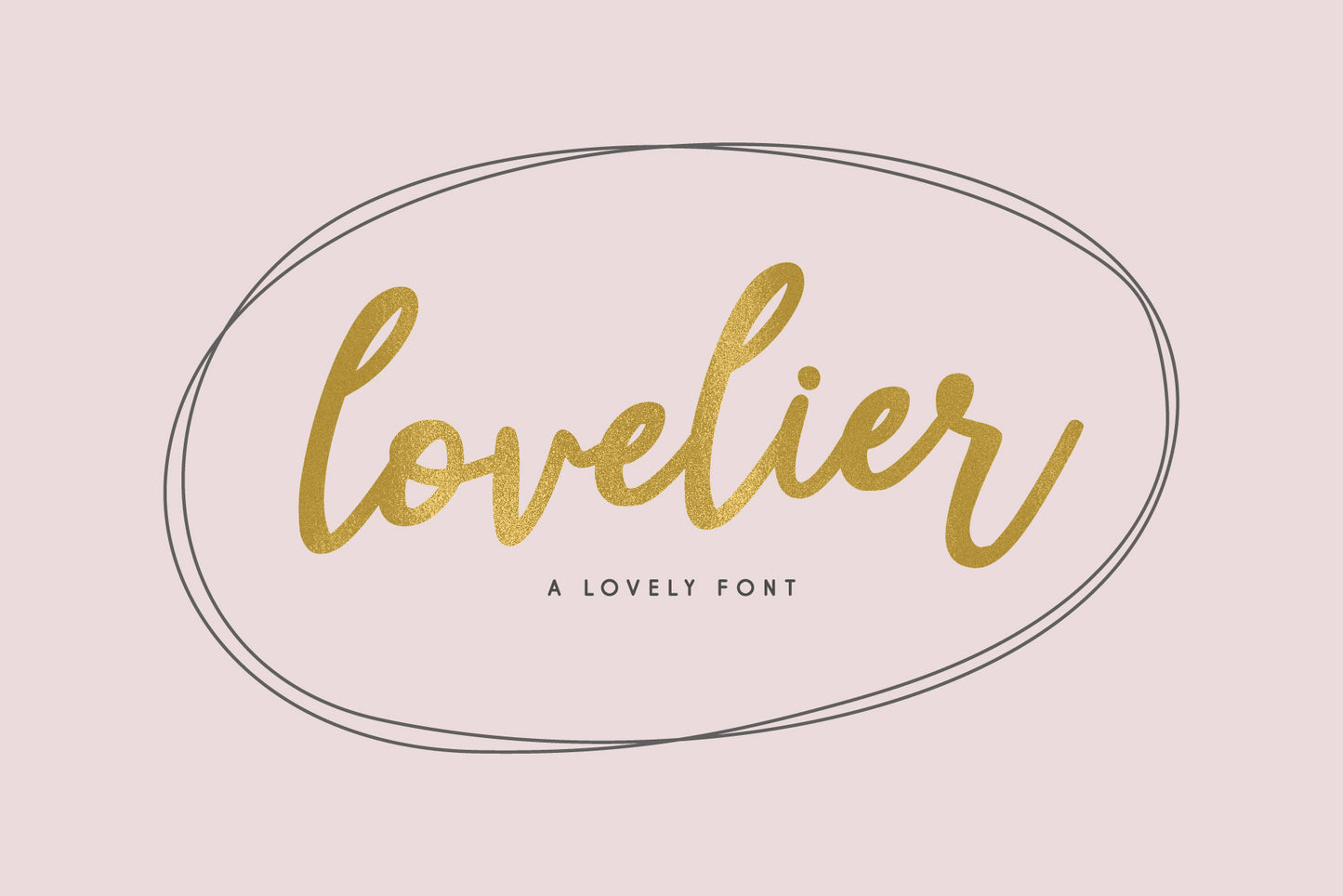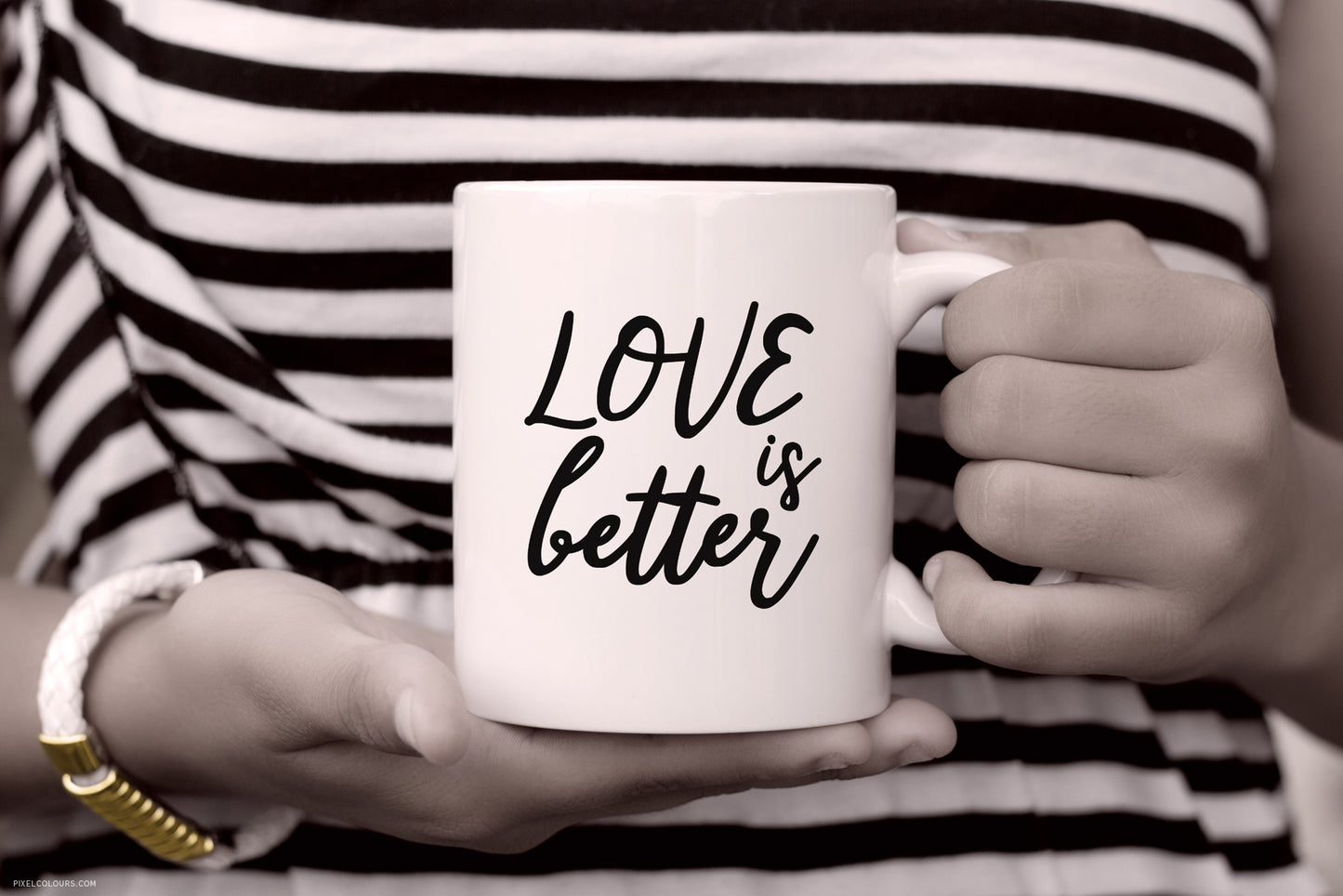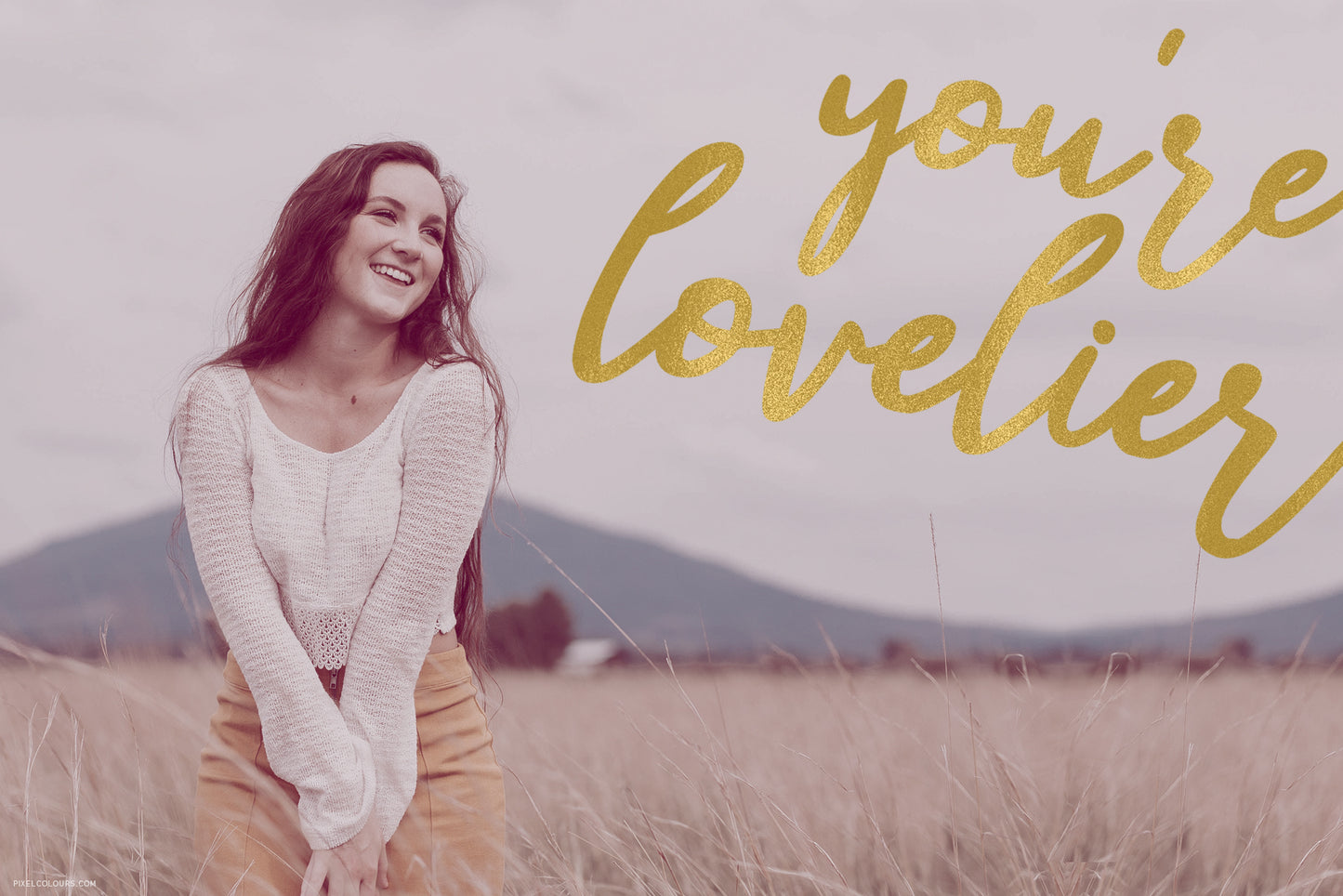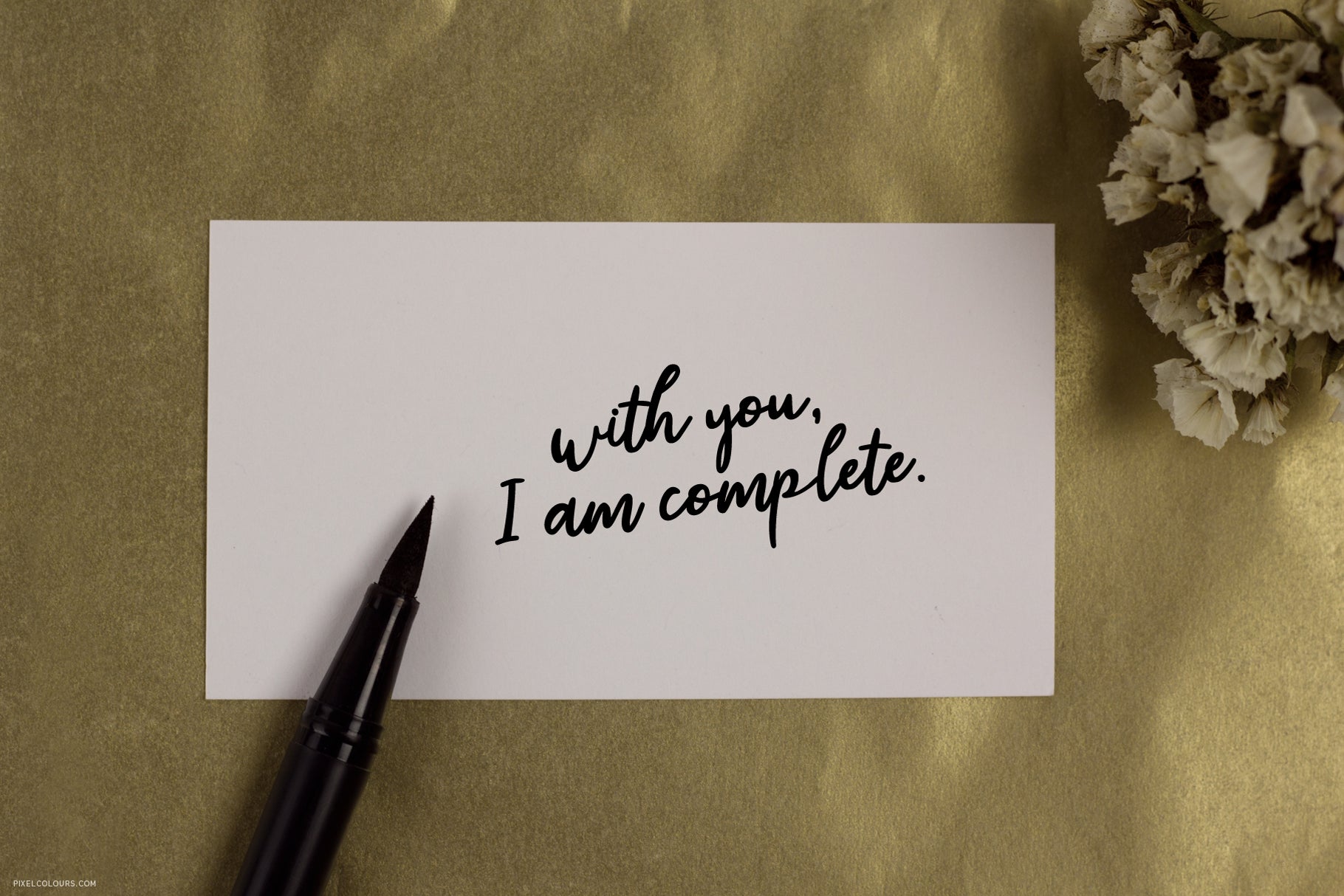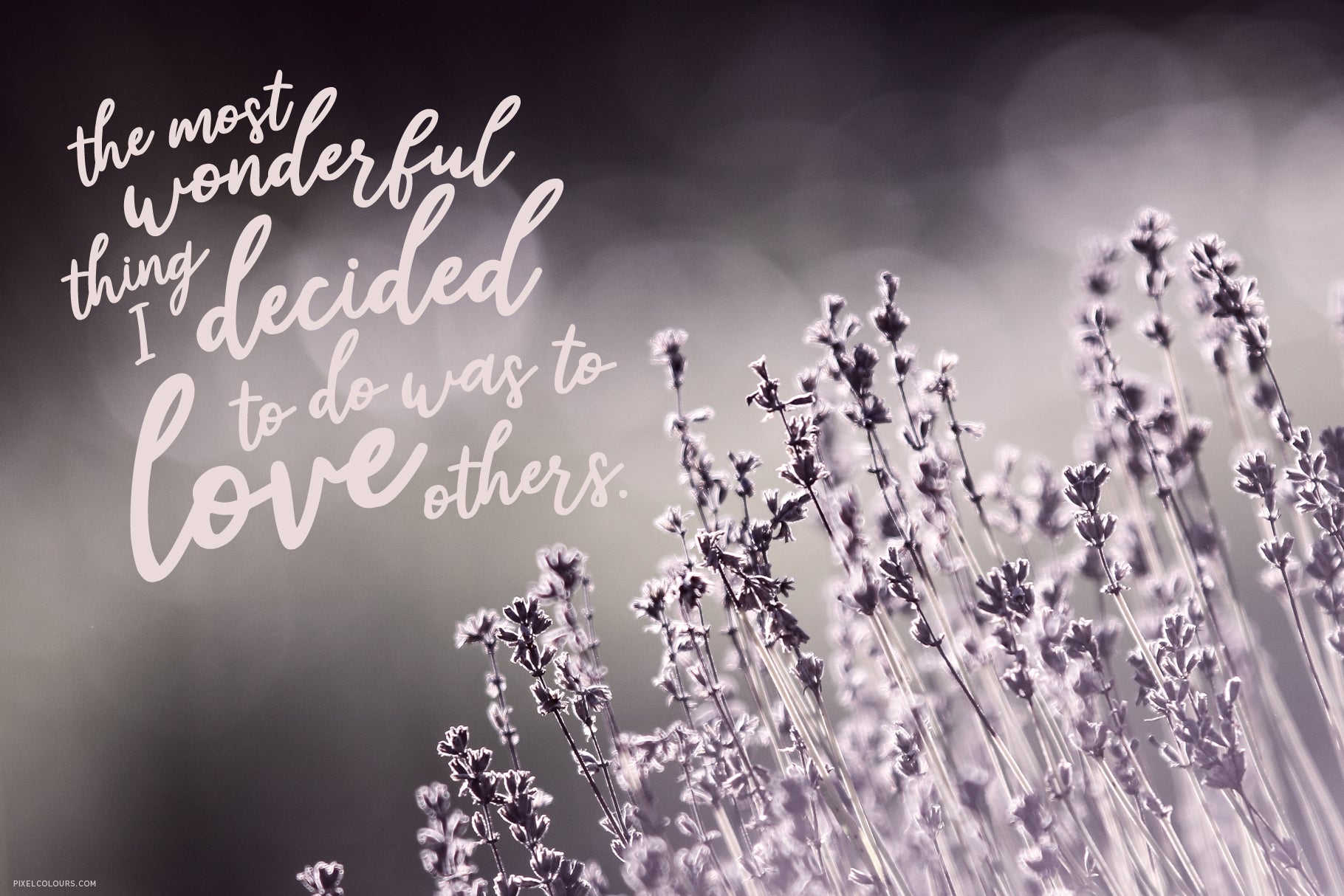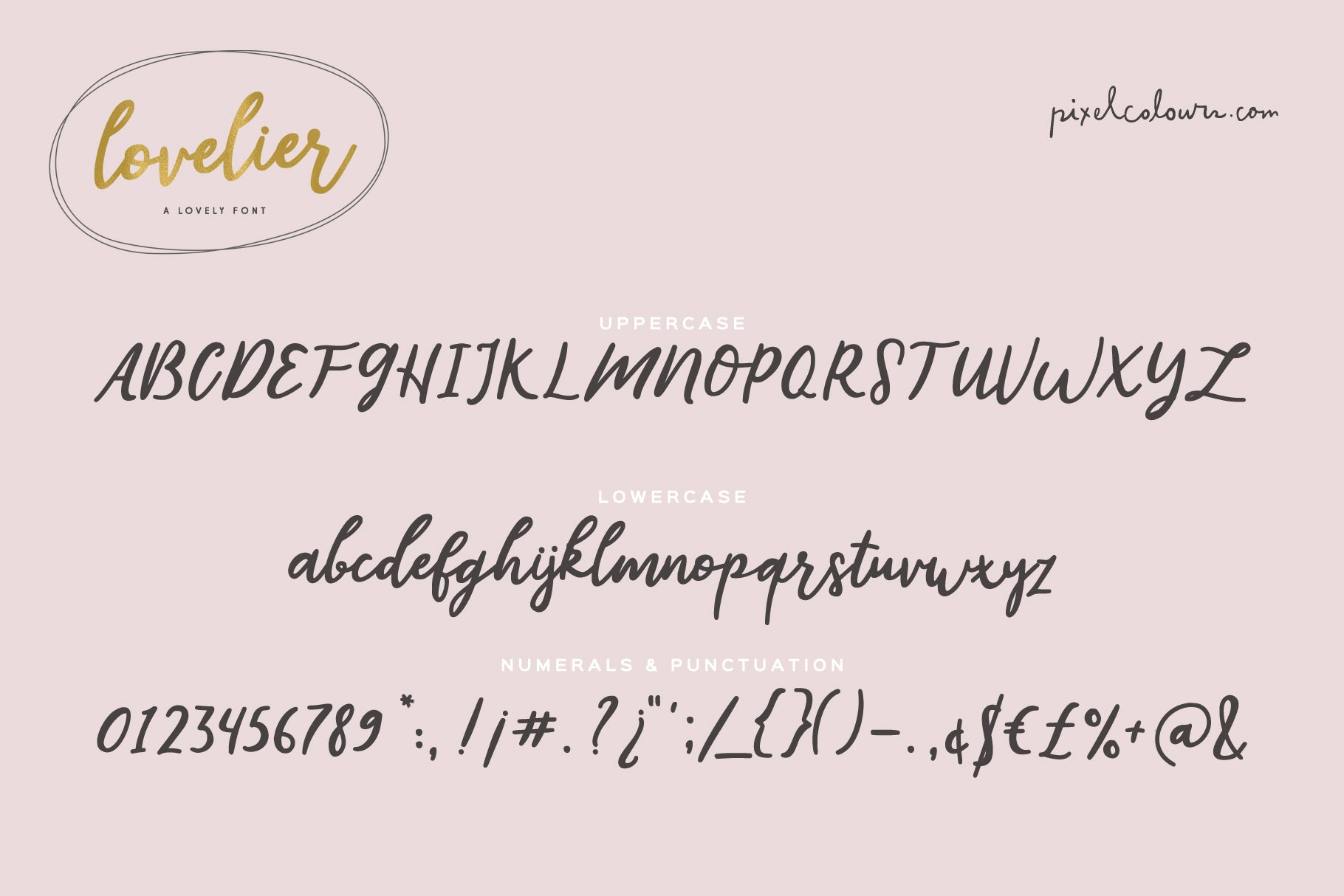
Lovelier Font
Lovelier is a script font with a casual, handwritten feel. It’s simple yet charming, making it perfect for designs that need a personal touch without being too fancy. Whether you’re creating quotes, logos, invitations, or social media graphics, this cursive font adds a fun, approachable vibe to any project. Lovelier is a sweet design resource to have in your font collection.
Ideas for use
- Handwritten quotes for social media or blogs
- Fun logos and brand designs
- Casual invitations or thank you cards
- Social media posts with a personalized, friendly touch
- Printable wall art or journals
- Simple stationery or product labels